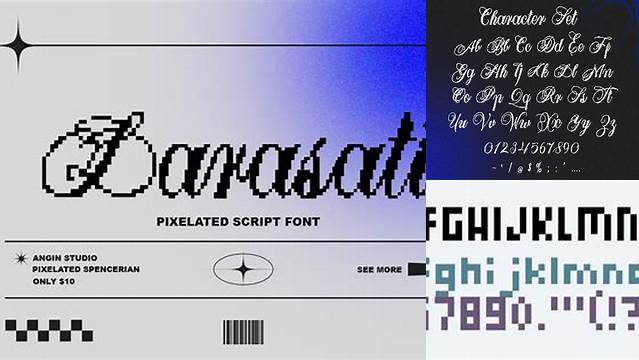
Larasati Pixelated Font: Free Download & Creative Uses
Discover the Charm of Larasati Pixelated Font
Hey guys! Ever stumbled upon a font that just screams nostalgia and retro vibes? That’s exactly the magic you get with the Larasati Pixelated font. This isn't your average run-of-the-mill typeface; it's a deliberate dive back into the golden age of digital design. Think old-school video games, chunky 8-bit graphics, and those iconic early computer displays. The Larasati Pixelated font perfectly captures that aesthetic, offering a unique character that’s both playful and distinctive. It’s built with a clear pixelated structure, meaning each letter is formed from visible square blocks, much like the pixels on a screen. This intentional design choice gives it a charmingly retro, almost handcrafted feel, despite its digital origins. When you’re looking to add a touch of vintage flair or a bold, graphic statement to your projects, Larasati Pixelated font is an absolute winner. It stands out because it’s not trying to be sleek and modern; it embraces its digital roots and turns them into a feature. This makes it incredibly versatile for a range of creative endeavors, from digital art and graphic design to crafting and even personal projects. So, if you’re on the hunt for a font that’s full of personality and offers a refreshing departure from the ubiquitous sans-serifs and serifs, you've found your match. The Larasati Pixelated font is ready to bring that retro coolness to your next design masterpiece.
Why You Need Larasati Pixelated Font in Your Toolkit
Alright, let’s talk about why this font is a must-have for your design arsenal, especially when it’s free! Having a diverse font collection is crucial for any creative, and the Larasati Pixelated font brings something truly special to the table. Its unique pixelated nature isn't just a stylistic choice; it’s a gateway to a whole realm of creative possibilities that smoother, more conventional fonts simply can’t replicate. Think about branding for retro-themed businesses, designing posters for 80s or 90s parties, or even creating eye-catching social media graphics that need to grab attention instantly. The Larasati Pixelated font excels in these scenarios because its boldness and distinctiveness ensure your message won't get lost in the scroll. Plus, the fact that it’s available for free is a huge bonus, guys! It means you can experiment with its unique look without any financial commitment. This accessibility makes it perfect for students, hobbyists, and professional designers alike who are looking to add a bit of personality to their work without breaking the bank. You can use it for t-shirt designs, custom mugs, digital collages, website elements, or even as a decorative element in print materials. The Larasati Pixelated font encourages a playful approach to design, allowing you to break free from rigid typographic rules and explore more artistic expressions. It’s a font that sparks creativity and invites experimentation, making it an invaluable asset for anyone looking to add a distinctive retro or digital art touch to their projects. So, definitely grab this gem while it’s free!
Unleashing Creativity: Top Uses for Larasati Pixelated Font
So you’ve downloaded the Larasati Pixelated font – awesome! Now, what can you actually do with it? This is where the fun really begins, guys. The unique aesthetic of Larasati Pixelated opens up a world of creative applications that you might not have considered. Its chunky, blocky style is perfect for anything that needs a strong, retro, or digital-art feel. Think about designing eye-catching social media posts or banners; the pixelated look will instantly stand out in a busy feed. It's also fantastic for creating posters for events with a vintage gaming, 80s, or 90s theme. Imagine a flyer for a retro arcade night or a throwback party – Larasati Pixelated font would be the perfect headline choice, instantly setting the mood. For graphic designers, it's a dream for creating album art, book covers, or even merchandise for bands or artists with a similar aesthetic. T-shirt designs are another prime candidate; a bold Larasati Pixelated graphic can make a simple tee look incredibly cool and unique. Don't forget about digital projects! Websites looking for a unique flair, especially those focused on gaming, tech history, or retro culture, can use this font for headings or special call-to-action buttons. Crafting enthusiasts, you can use this font for stencils, vinyl cutting projects for home decor, or personalized gifts. The possibilities are truly endless. It's a versatile font that encourages bold design choices and adds a memorable, distinctive touch to whatever you apply it to. So, get experimenting and see where this awesome pixelated font takes your creativity!
Designing with Digital Nostalgia: Pixel Art Vibes
If you're all about that digital nostalgia, the Larasati Pixelated font is your golden ticket. It’s designed to evoke the era of early computing and video games, where every character was a carefully crafted grid of pixels. This font doesn't shy away from its pixel art origins; it embraces them wholeheartedly. When you use Larasati Pixelated, you're essentially bringing a piece of that iconic pixel art aesthetic into your modern designs. This is fantastic for creating graphics that feel authentically retro, without looking like a cheap imitation. Think about designing a website for a retro gaming blog, or maybe creating promotional material for a synthwave music artist. The Larasati Pixelated font will immediately communicate that vibe. It’s also brilliant for adding a unique texture or pattern within your designs. You could use it to create borders, background elements, or even incorporate individual letters as graphic elements in a larger collage. The chunky, blocky nature of the font makes it highly graphic and visually striking. It’s not just about the letters; it’s about the overall visual impact. For those who love the charm of pixel art but want a more polished, legible font for headlines or key text, Larasati Pixelated strikes that perfect balance. It offers the recognizable pixelated look but with the clarity and structure that makes it usable in a wider range of applications. So, whether you’re recreating the feel of classic arcade games or simply want to add a touch of digital charm, this font is your go-to for nailing that pixel art vibe.
Branding That Pops: Retro and Unique Identity
Creating a brand identity that truly stands out is a challenge in today’s crowded marketplace, right guys? That’s where a font like Larasati Pixelated can be a game-changer. If your business or project is leaning into a retro theme, whether it’s 80s, 90s, vintage gaming, or even a futuristic-retro blend, this font can instantly solidify that identity. Imagine a cool new coffee shop called “The Pixel Grind” – the Larasati Pixelated font would be perfect for their logo, signage, and menus, immediately conveying a unique and memorable vibe. For tech startups that want to pay homage to the pioneers of computing, using a pixelated font like Larasati can be a clever nod to the industry's roots. It shows personality and a willingness to be different. It's not just about looking retro; it's about creating a unique identity that resonates with your target audience. This font grabs attention. Its distinctive pixelated form ensures that your brand name or key messages are noticed. It can be used for everything from website headers and app icons to product packaging and marketing materials. When used thoughtfully, Larasati Pixelated font can make your brand feel playful, innovative, and decidedly non-corporate, which can be incredibly appealing to certain demographics. Remember, a strong brand is built on recognition and personality, and this font delivers both in spades. So, if you’re looking to build a brand that’s memorable, unique, and has a distinct retro or digital edge, definitely consider incorporating the Larasati Pixelated font into your strategy.
Eye-Catching Social Media Graphics and Posts
Let's be real, scrolling through social media is a visual overload. To cut through the noise, your graphics need to be bold, engaging, and instantly recognizable. This is precisely where the Larasati Pixelated font shines, especially for platforms like Instagram, TikTok, or Pinterest. Its chunky, pixelated design is inherently attention-grabbing. When used for headlines on your posts, announcement banners, or even overlaid on images, it creates a strong visual anchor that stops the scroll. Think about creating graphics for a sale event, a new product launch, or simply sharing an inspiring quote. Using Larasati Pixelated font for the main text will give your content a unique, retro, or digital-art feel that immediately differentiates it from the standard fare. It's fantastic for accounts that focus on gaming, vintage fashion, 8-bit art, or any niche that benefits from a distinct visual style. You can use it for Instagram Stories to highlight key information or create captivating Reels covers. For Facebook posts or Twitter updates, a strong Larasati Pixelated headline can draw users in. The font’s inherent graphic quality means it works well even at larger sizes, making it ideal for prominent text elements. Plus, its free availability means you can experiment with it endlessly to create a consistent and unique visual theme across your social media presence. So, go ahead and give your social feed that much-needed retro refresh with this awesome font!
Adding Flair to Craft Projects and DIY
Calling all crafters and DIY enthusiasts, guys! The Larasati Pixelated font isn’t just for digital design wizards; it’s also an incredibly fun and versatile tool for your physical projects. Its distinct blocky style makes it perfect for a variety of handmade creations. Have you ever wanted to create custom t-shirts with a unique graphic? Larasati Pixelated font is fantastic for vinyl cutting – you can easily cut out individual letters or words to iron onto fabric. It’s also brilliant for creating personalized mugs, tote bags, or even home decor items like wooden signs or wall art. Imagine cutting out a retro-inspired quote in this font for your craft room or a gamer-themed design for a friend’s birthday. The pixelated nature lends itself perfectly to stencils, too! You can create stencils for painting on canvas, furniture, or even walls, giving your projects that cool, retro digital look. For scrapbookers, this font can add a unique, thematic element to layouts, especially for pages documenting gaming experiences or throwback memories. Even for card-making, using Larasati Pixelated for a birthday greeting or a special announcement can make your handmade cards truly memorable. Its bold nature means it pops, and its unique style adds a layer of personality that mass-produced items just can’t match. So don't limit yourself to the screen; grab this font and let it inspire your next amazing DIY creation!
Enhancing Websites and Digital Interfaces
For web designers and developers looking to inject some personality and retro charm into their digital projects, the Larasati Pixelated font is a fantastic asset. While it might not be suitable for body text due to its pixelated nature, it absolutely excels as a display font for headings, subheadings, navigation elements, or special call-to-action buttons. Imagine a website dedicated to retro gaming, 8-bit art, or even a quirky personal blog. Using Larasati Pixelated for the main titles can instantly set the tone and attract the target audience. It creates a strong visual hierarchy and makes key sections of your site stand out. Think about how effective it would be for a